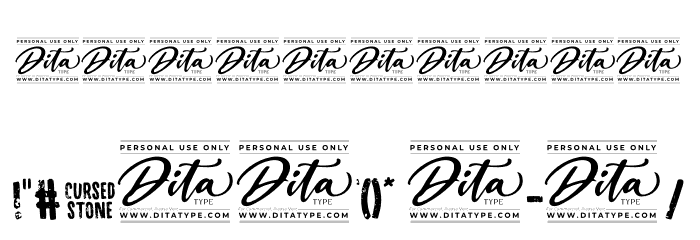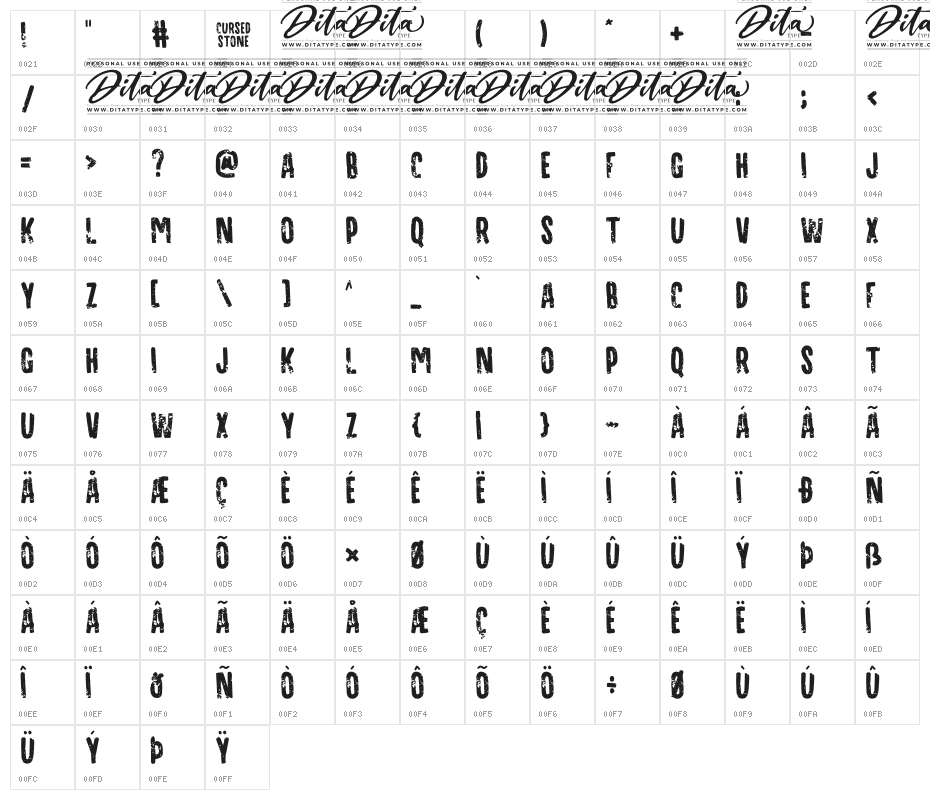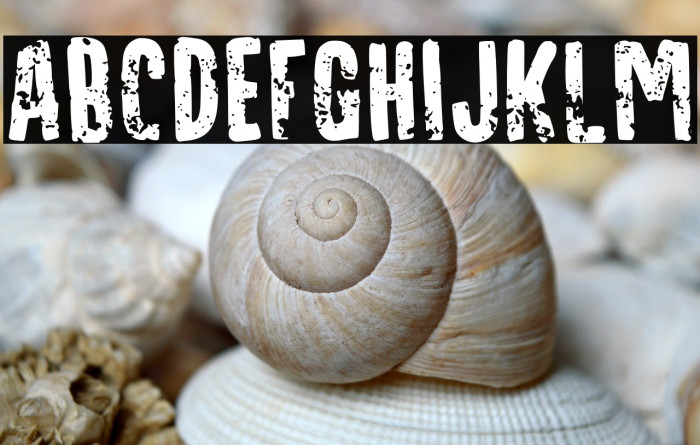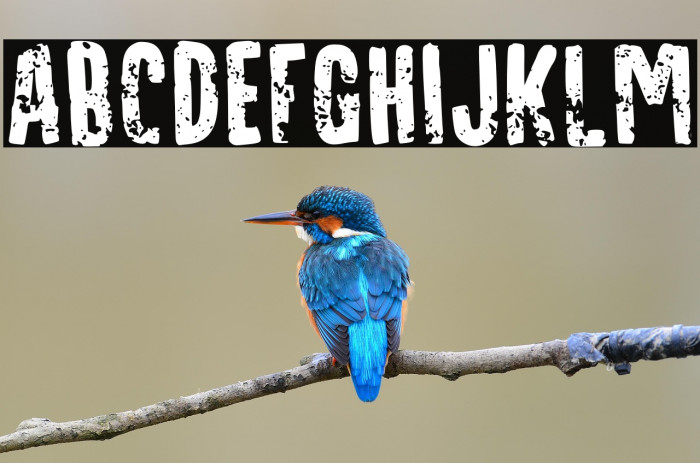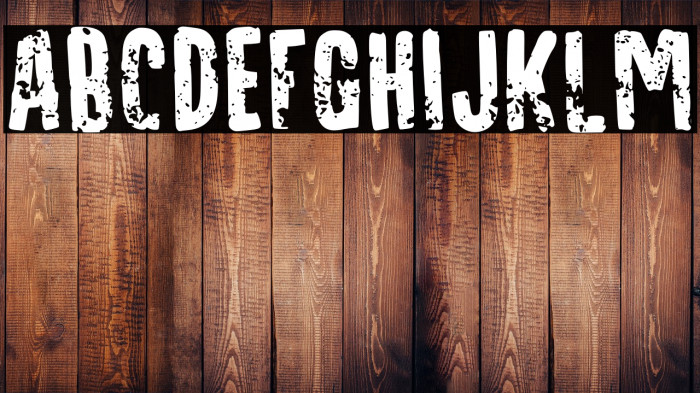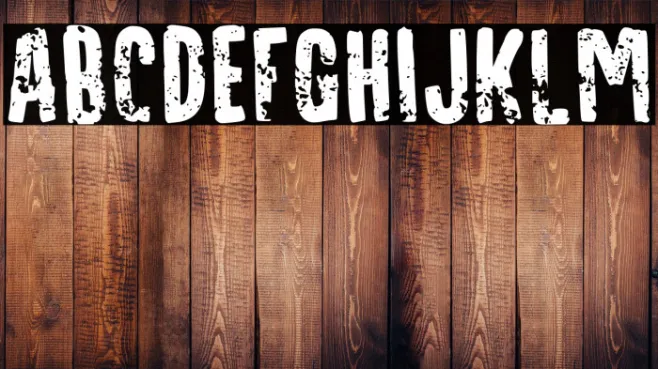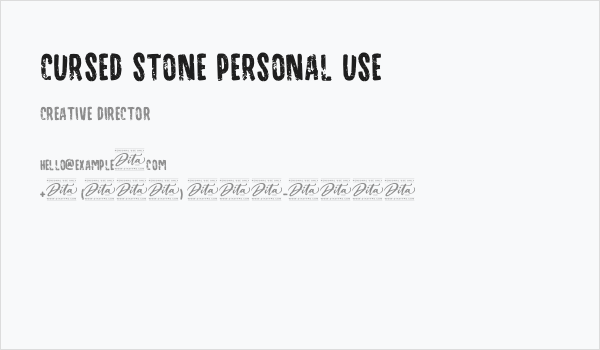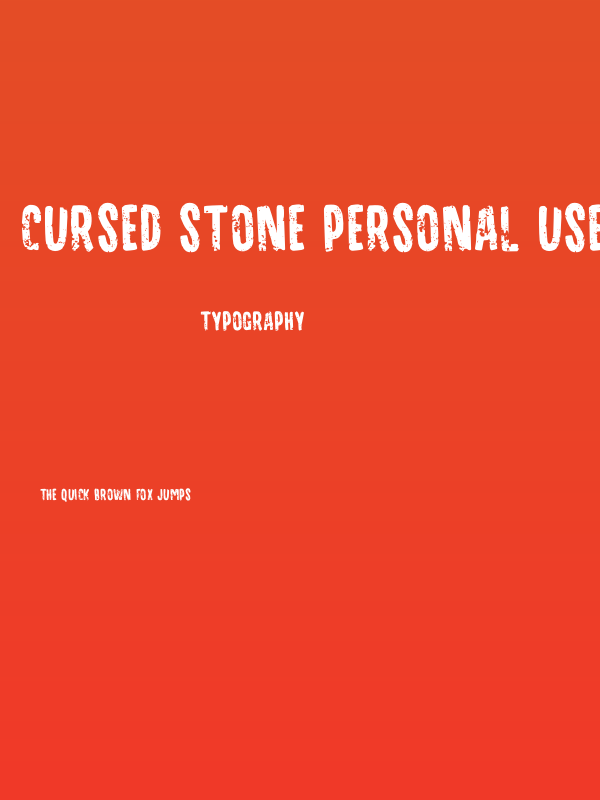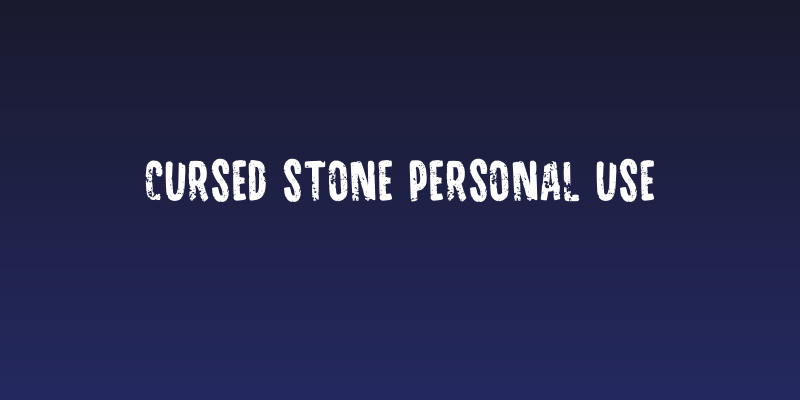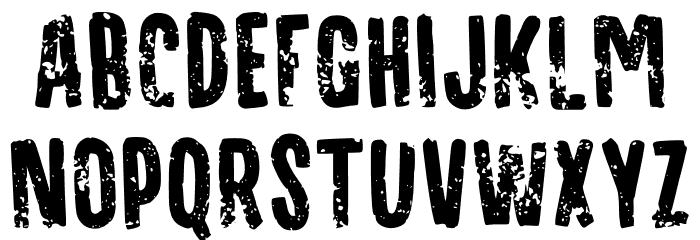
Cursed Stone Personal Use Font
Cursed Stone Personal Use Description
This font features a bold, distressed style with a rough, textured appearance that gives it a weathered, vintage feel. The uppercase letters are prominent and impactful, making them ideal for attention-grabbing designs. The lowercase letters maintain the same rugged texture, ensuring consistency across different text elements. The numbers and special characters also carry the same distressed look, adding to the overall cohesive aesthetic. This font's unique style is perfect for projects that require a gritty, urban, or rustic vibe, such as posters, album covers, or branding for edgy products.
| Proposed Projects | Ideal for posters, album covers, branding, and designs needing a gritty, urban vibe. |